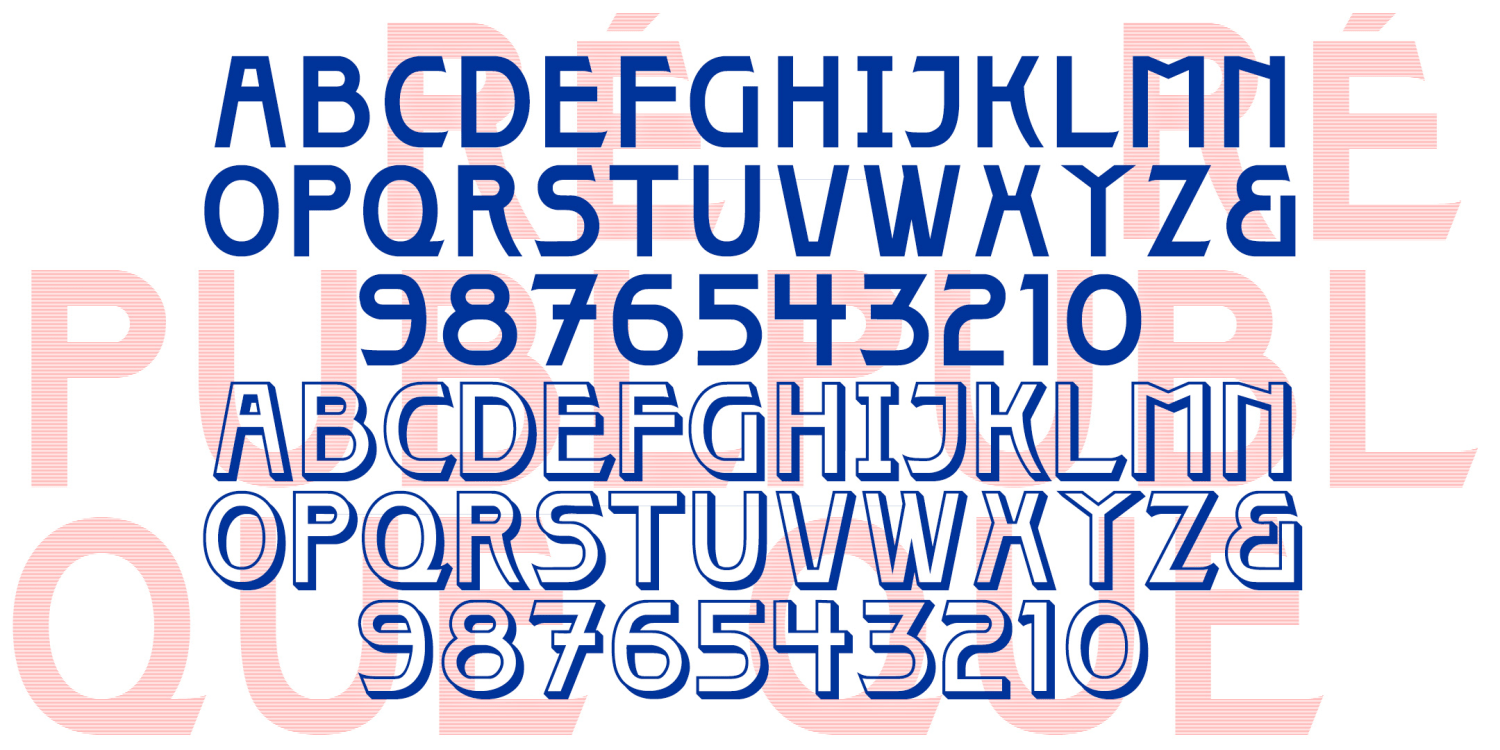
Republique
The 4 REPUBLIQUE fonts have a distinctive vintage feel. They were inspired by the lettering on one style of Paris Metro sign, designed by the architect Adolphe Dervaux and first installed in 1924. (This design coexists with the more famous Art Nouveau “Metropolitain” signs, designed by Hector Guimard in 1900 and made of sinuous wrought iron.) The “Candelabra Dervaux” signs use this design, cut from metal like stencils for back-lighting, and crossed by parallel line that suggest train tracks. I've created a Solid version without the cross bars, and then Shadow versions of each that can use used with or without the other version.